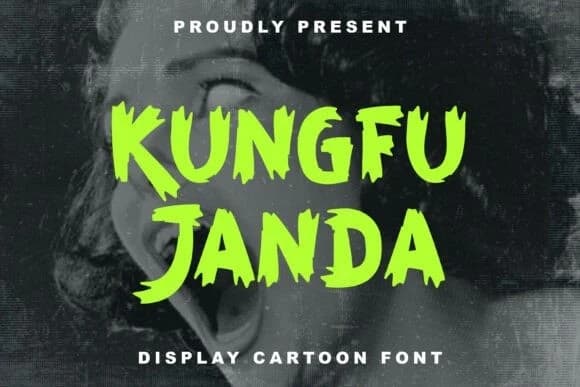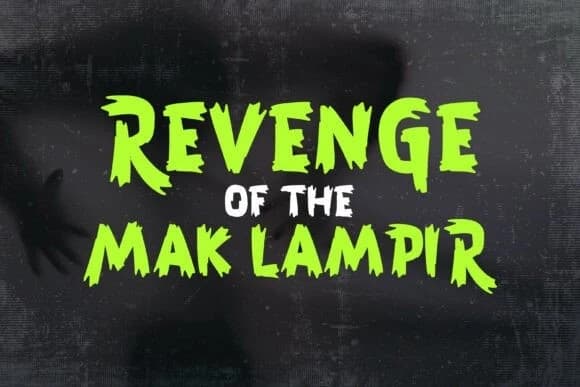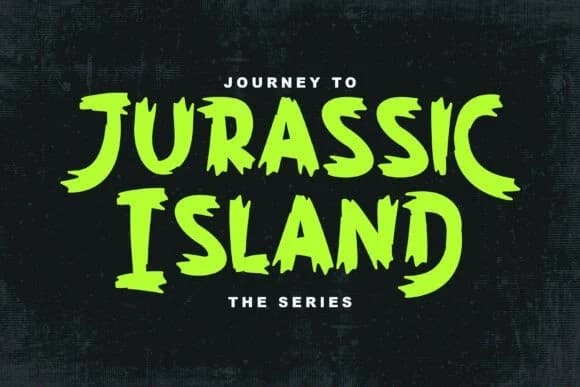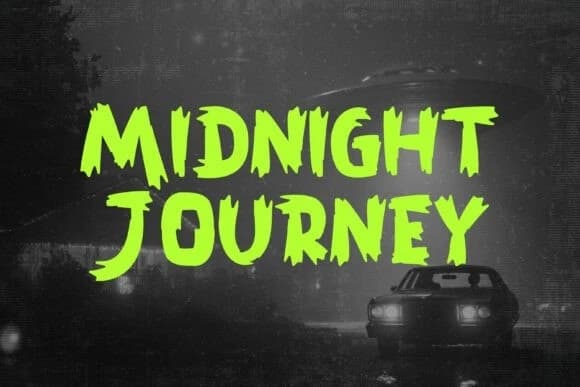
Kungfu Janda Font
Kungfu Janda Font is a cartoon display font with a horror theme, yet still has a fun feel. This font is designed for cartoon-themed designs, children’s themes, and clothing brands. This font consists of standard glyphs and several stylish alternates.